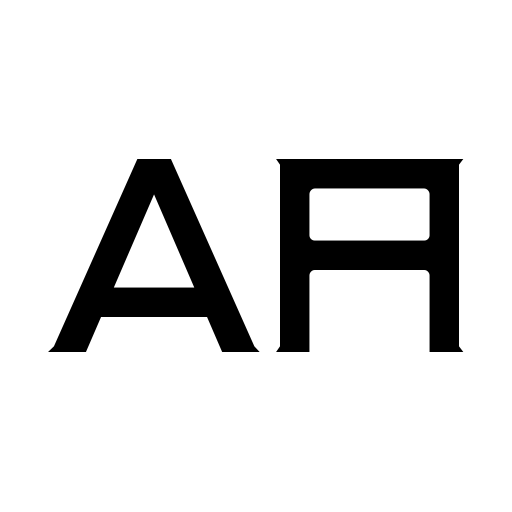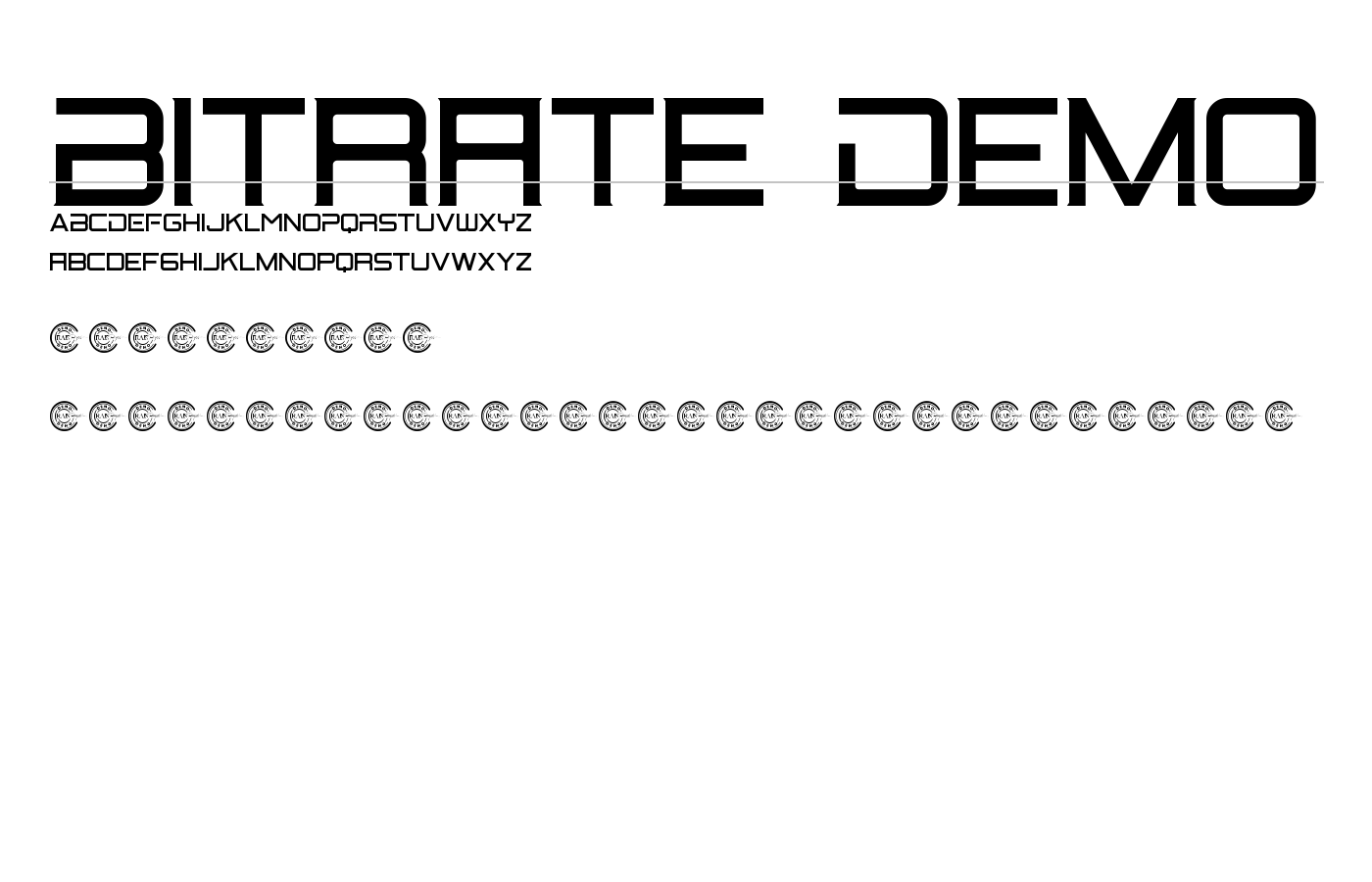
Bitrate Demo is a futuristic sans serif font characterized by its bold, geometric shapes and sleek, tech-inspired design. Its wide, uniform strokes and squared letterforms give it a strong, modern feel, making it perfect for digital, gaming, and technology-focused branding or headlines that seek a dynamic and innovative impression. This font works best where a clean, forward-looking style is needed to convey modernity and precision.
Bitrate Demo Font
About Bitrate Demo Font